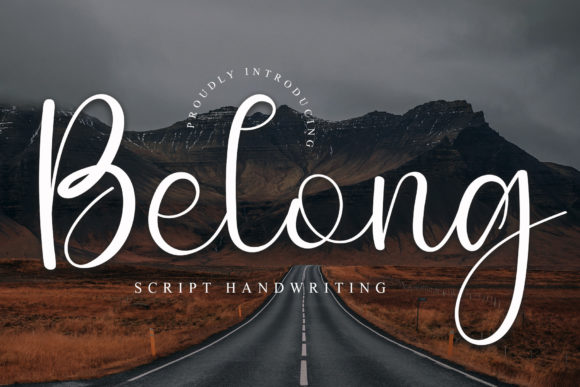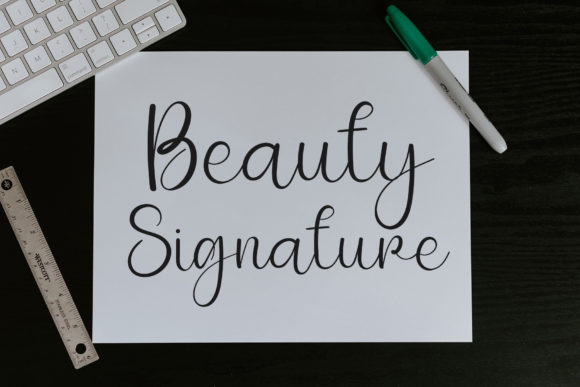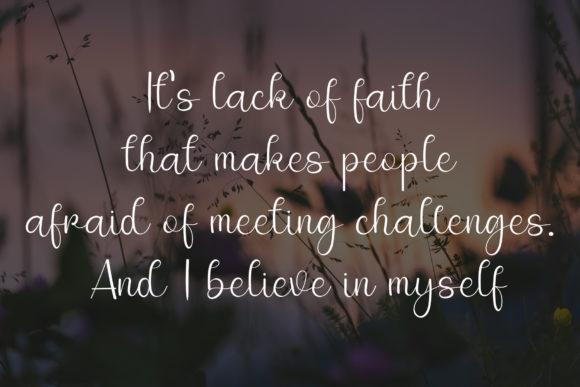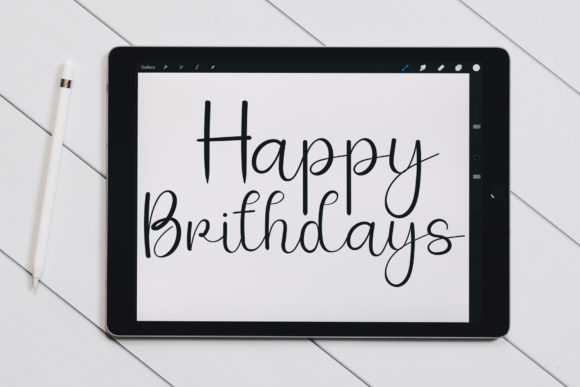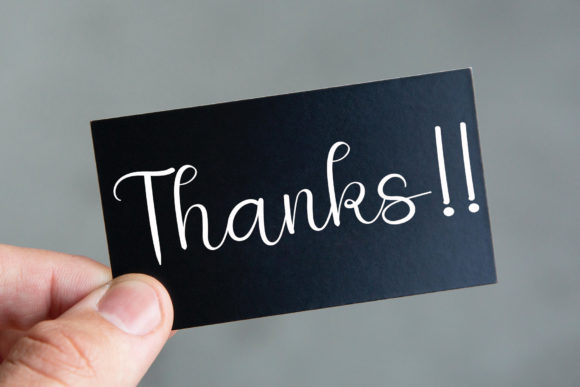
About Belong Font
“Belong” is a charming and enduring handwritten font that stands out as the perfect choice for crafting eye-catching logos, establishing distinctive branding, and creating memorable quotes. Each letter in this font boasts a unique and captivating touch, infusing your design with a sense of life and individuality.
The timeless quality of “Belong” makes it a versatile option for a wide range of design projects. Whether you’re working on a logo that needs to make a lasting impression, establishing a brand identity that stands out from the crowd, or crafting impactful quotes for various applications, “Belong” is designed to elevate your creative endeavors.
The font’s handwritten style exudes a sense of warmth and authenticity, bringing a personal touch to your designs. Its versatility makes it suitable for a variety of contexts, allowing you to seamlessly integrate it into different design elements. “Belong” becomes more than just a font; it becomes a key component in telling your brand story or conveying your message with character and flair.
Choose “Belong” to infuse your design projects with a touch of elegance and timelessness. This font not only meets the aesthetic demands of logos, branding, and quotes but also adds a distinctive and captivating element that sets your work apart. With “Belong,” you’re not just selecting a font – you’re choosing a design companion that brings your creative vision to life.